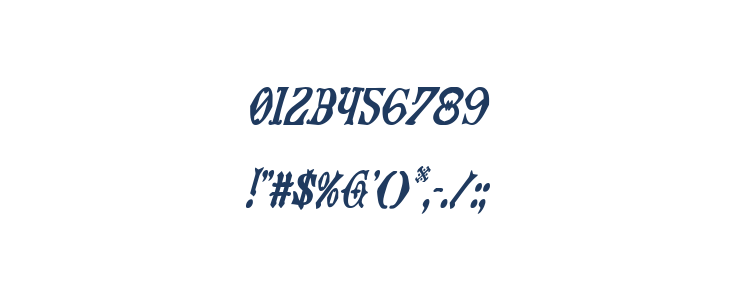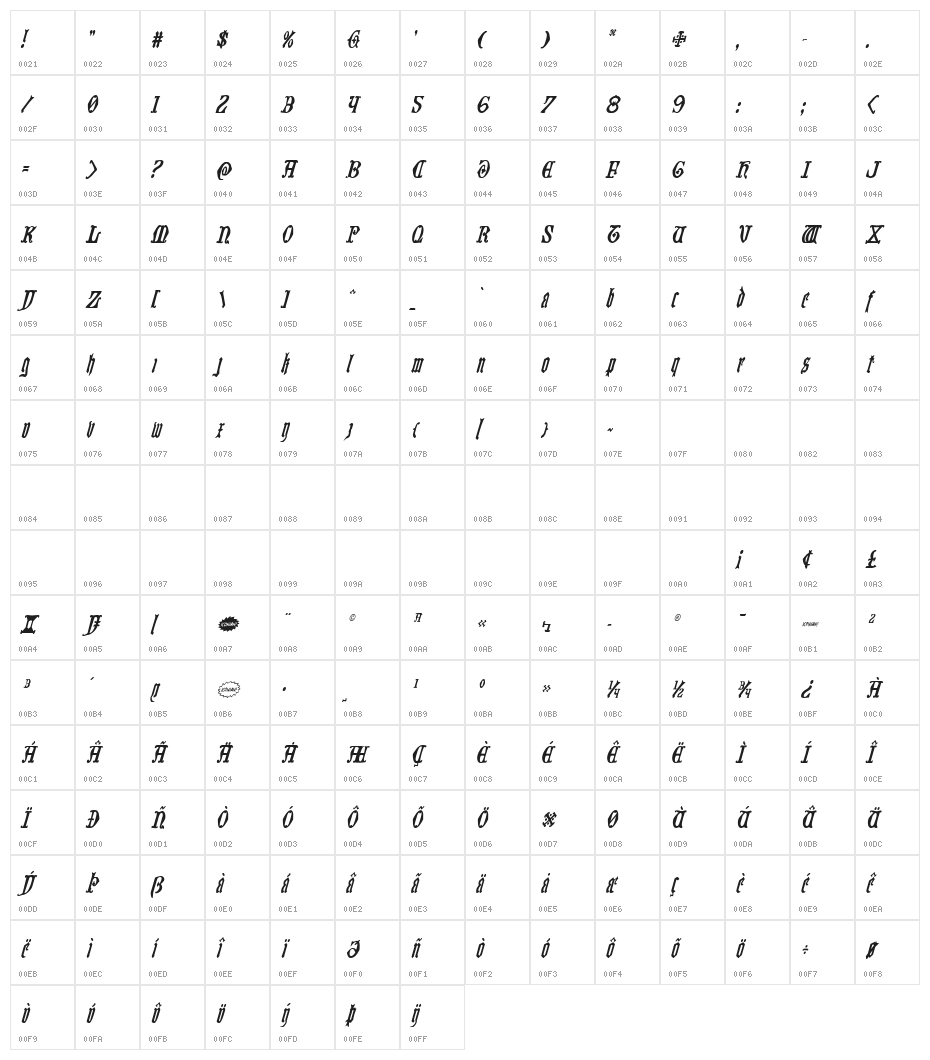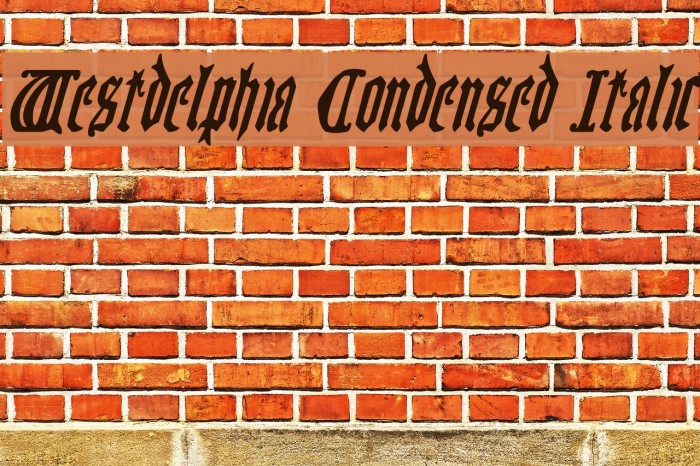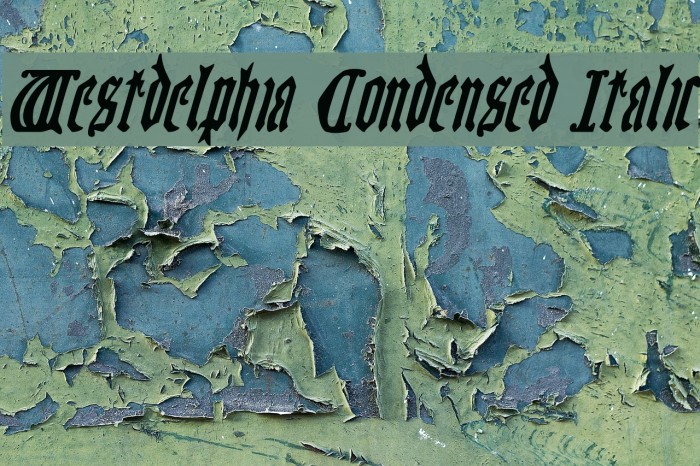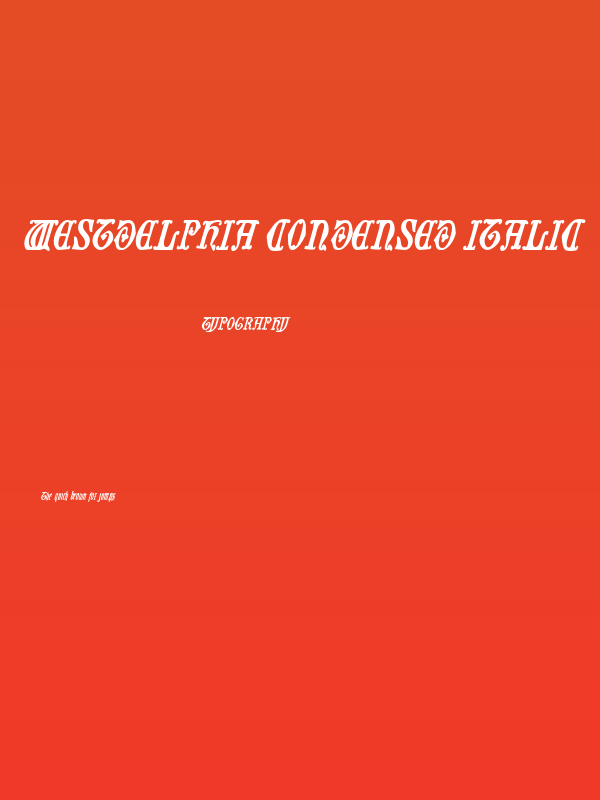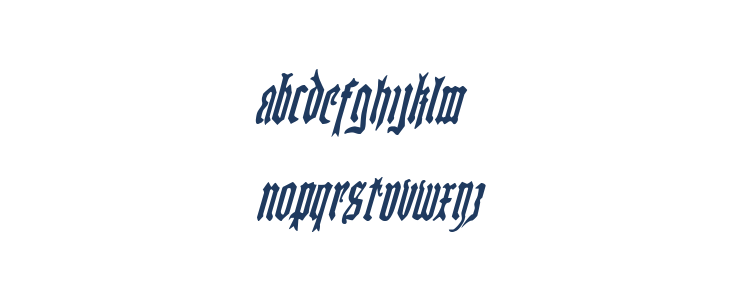
Westdelphia Condensed Italic Font
Westdelphia Condensed Italic Description
This font exhibits a bold, condensed style with a distinct italic slant, reminiscent of traditional blackletter scripts. The characters are intricately designed with sharp edges and dramatic flourishes, giving it a gothic and medieval appearance. The uppercase letters are particularly ornate, featuring unique embellishments that enhance their visual impact. The lowercase letters maintain a consistent style, with a slightly more restrained design. Numerals and special characters follow the same aesthetic, ensuring a cohesive look across all elements. The font's condensed nature allows for efficient use of space, making it suitable for designs where a strong, impactful presence is desired.
Overall StyleGothic, Medieval, Decorative
Proposed ProjectsIdeal for use in branding, posters, book covers, and any project requiring a dramatic, historical touch.